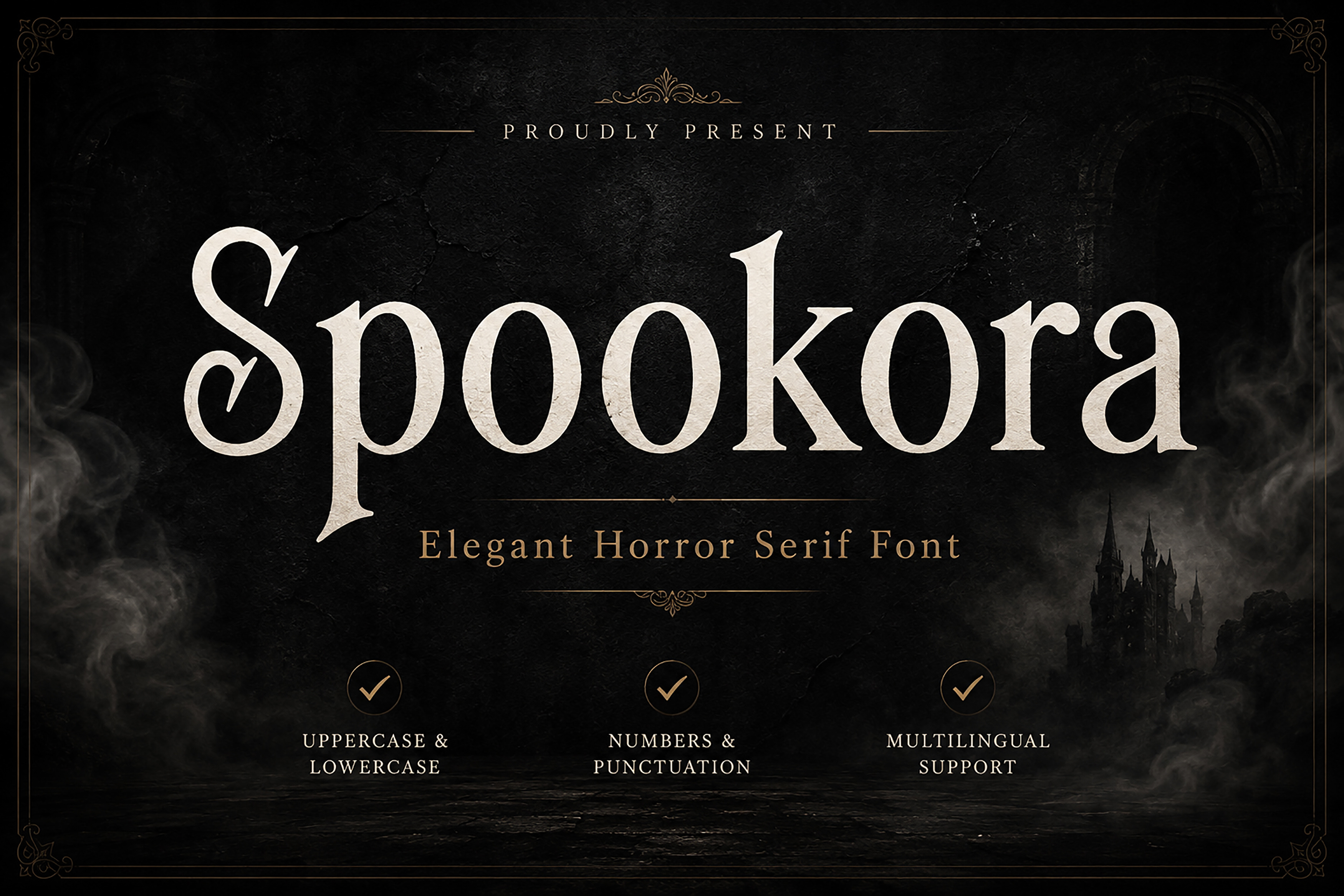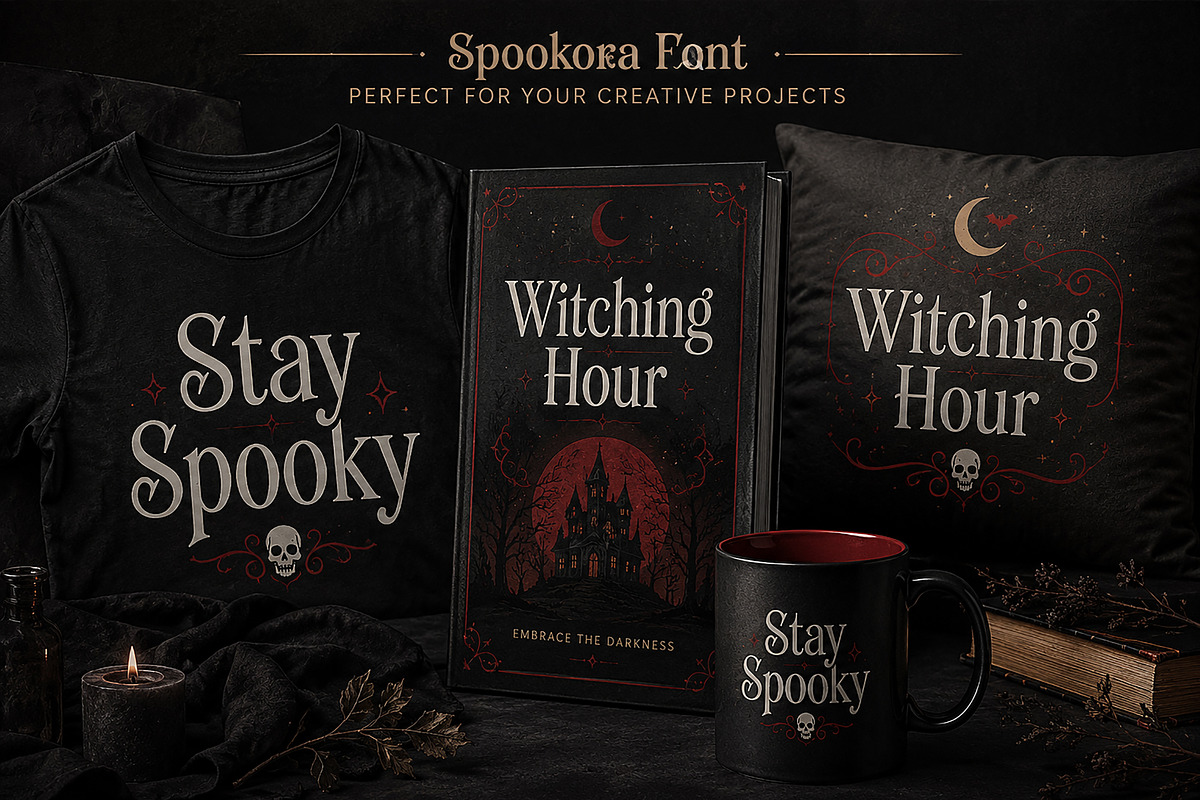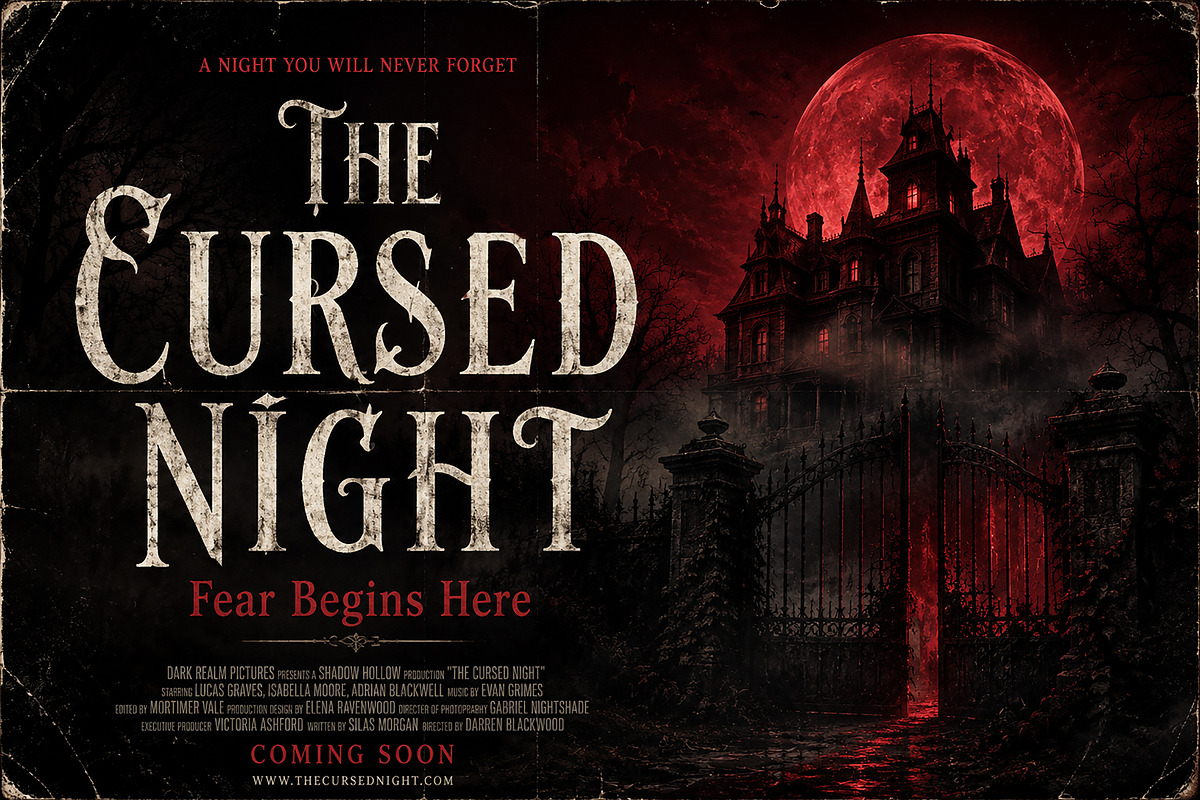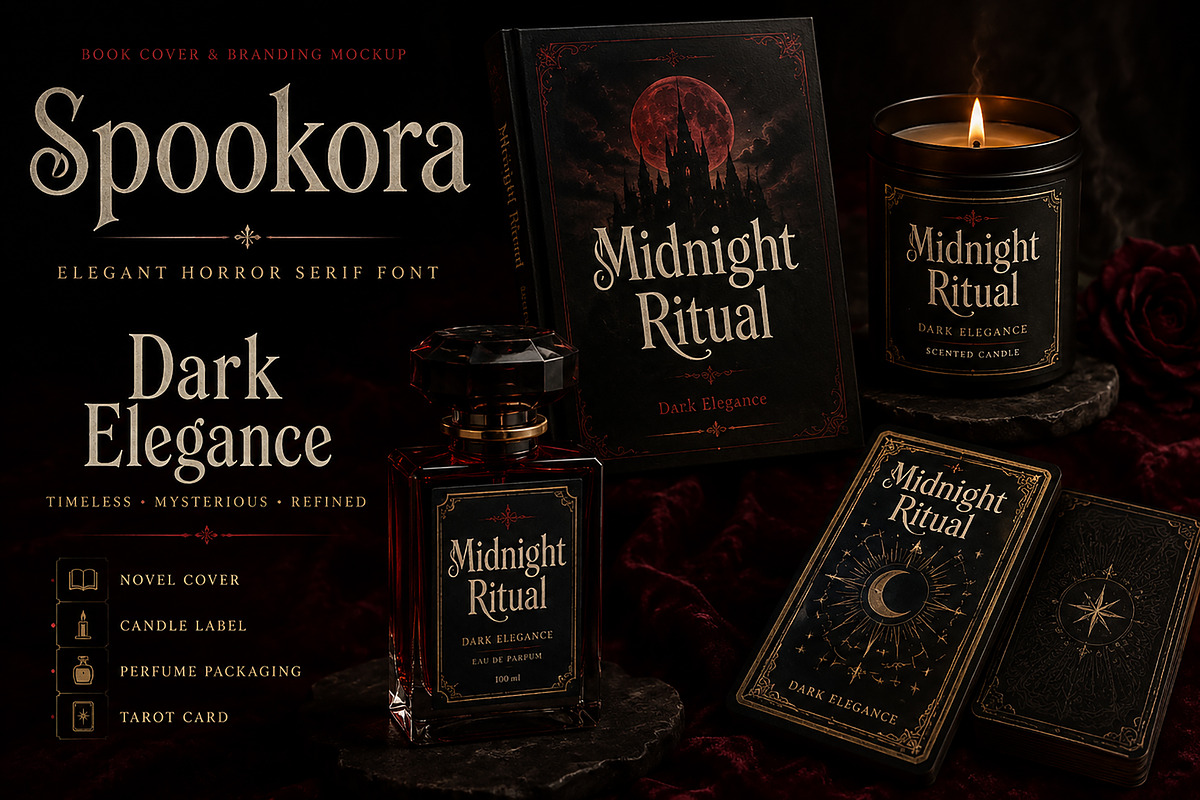
Spookora — Elegant Horror Serif Font
Spookora is a dark, mysterious, and elegant horror serif font crafted for creators who want to bring a hauntingly beautiful touch to their designs. With sharp curves, dramatic contrasts, and gothic-inspired letterforms, Spookora blends vintage horror aesthetics with refined elegance.
Perfect for Halloween projects, horror movie posters, dark fantasy book covers, gothic branding, merchandise, packaging, and eerie editorial designs.
Whether you're designing for a spooky event, a mysterious novel, or premium dark-themed branding, Spookora delivers a bold and unforgettable presence.
Uppercase & Lowercase Letters
Horror Movie Posters
Halloween Branding
Gothic Logos
Merchandise Design
Editorial Titles
Vintage Posters
Dark Fantasy Projects
Spookora is designed to create atmosphere — mysterious, dramatic, and timeless.